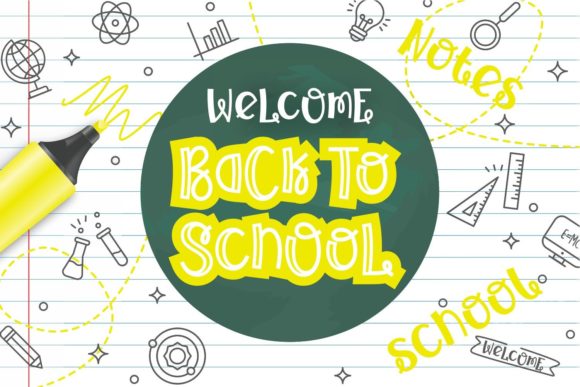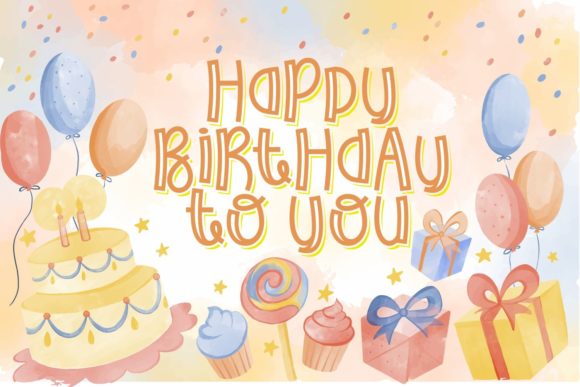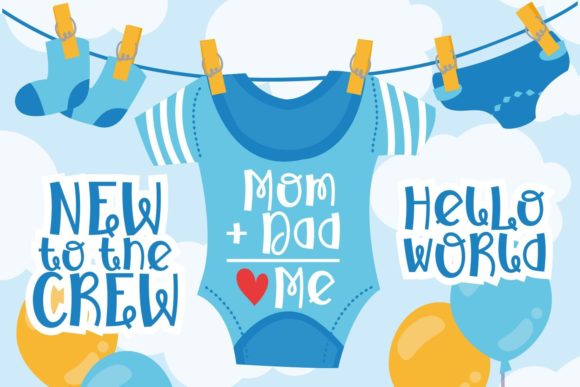
Introduction to Meaningful Smile Font
Meaningful Smile is a whimsical and genuine display font.
Expertly designed to make your creation look out of this world, this font will look gorgeous on a variety of ideas .
Key Features of Meaningful Smile Font
Why Choose Meaningful Smile Font?
Meaningful Smile Font offers exceptional quality and versatility, making it a valuable addition to your design toolkit. Whether you’re creating for personal projects or commercial use, Meaningful Smile Font delivers professional results.